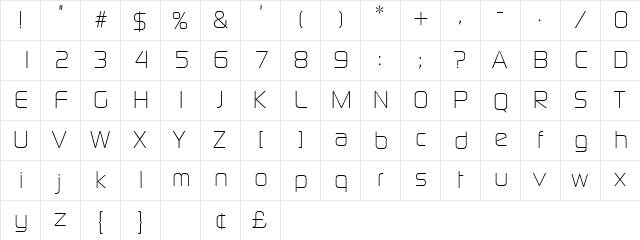
Bazouk Light SSi Light
Design Context for Bazouk Light SSi Typeface
Bazouk Light SSi is a composed and adaptable typeface that performs quietly and consistently across a wide range of design contexts. Its slender proportions lend an understated elegance to any composition.